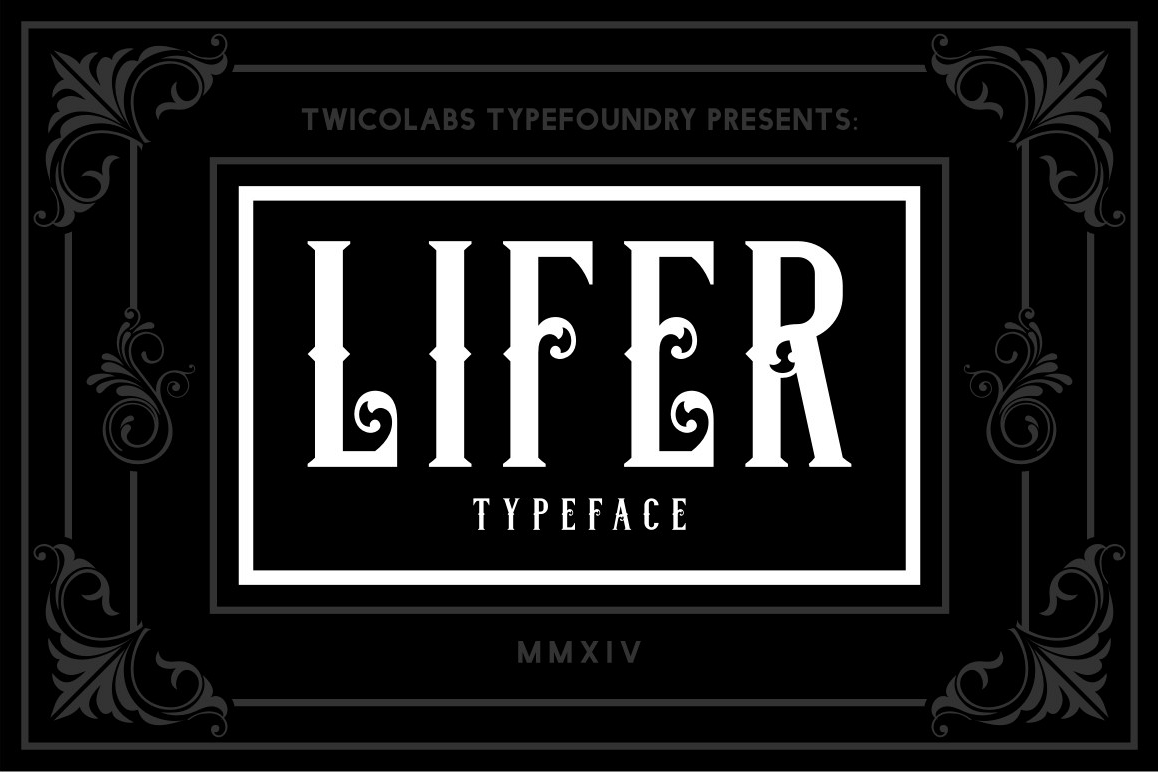
Lifer
In the name of our love to old advertising letter style in early 1900, we proudly presents Lifer.
A classic ornamental font that suits best for any vintage / classic design themes.
Lifer's 247 glyphs are mouse-crafted carefully with high and smooth details on every lines.
Available in upper and lowercase, numerals, punctuations and some multilingual characters. (in .OTF and .TTF)